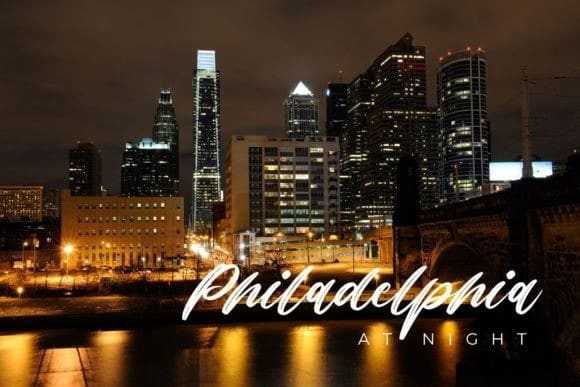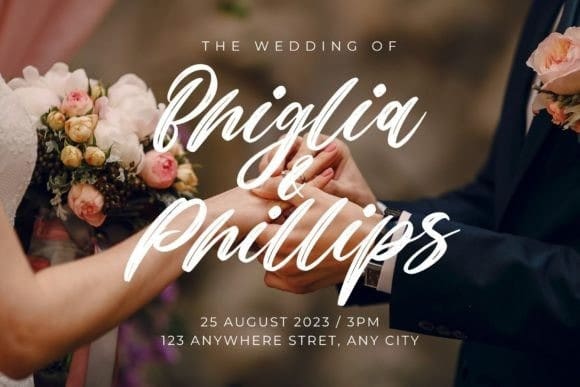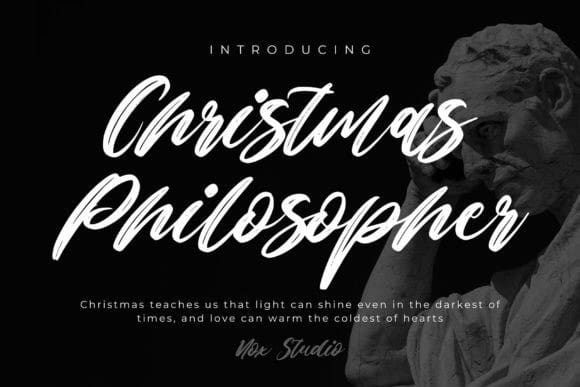
Christmas Philosopher Font
Christmas Philosopher Font, is a dazzling and timeless handwritten font. This is the best choice for various designs and needs of your Christmas season. Use this font and enjoy the beauty of the art we create. This font is PUA encoded which means you can access all glyphs and sweeps easily!